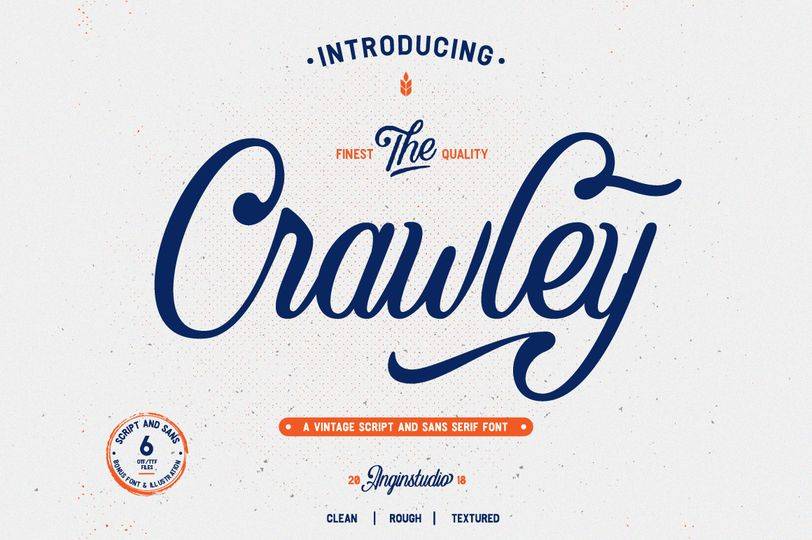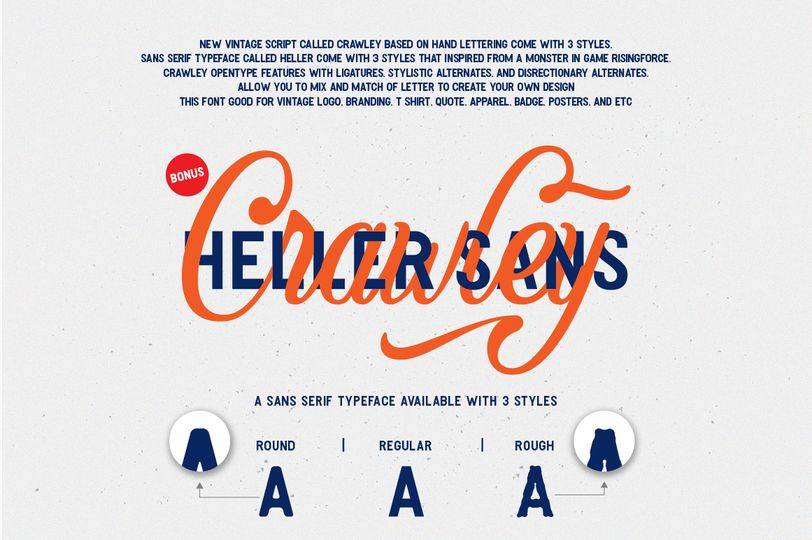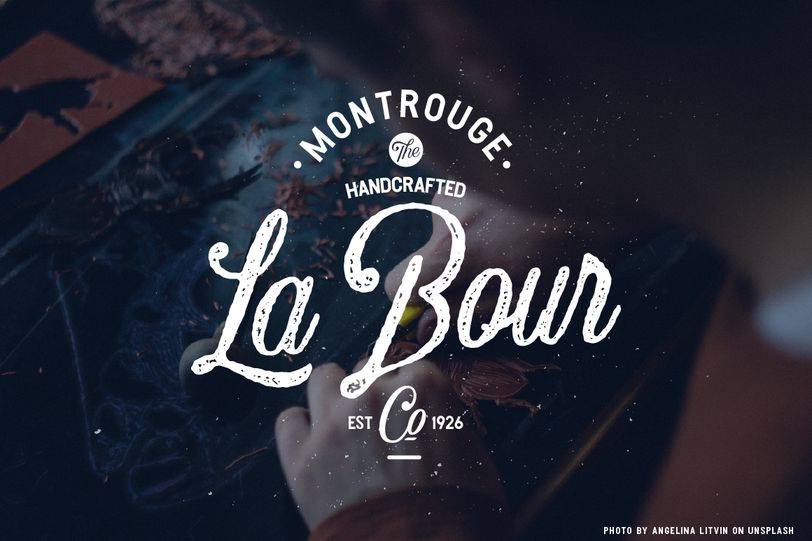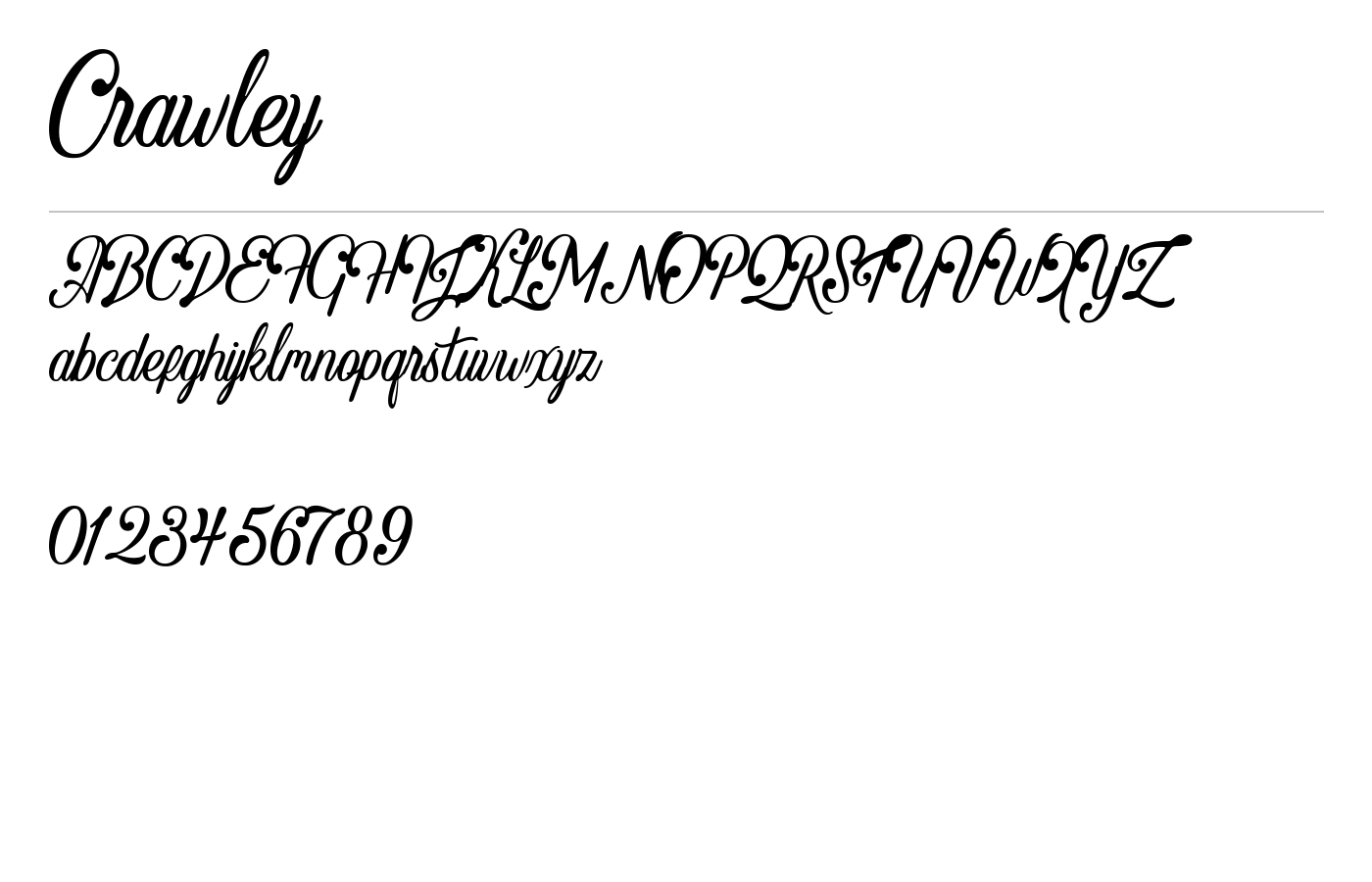
The Crawley Font is an elegant, flowing script typeface with a moderate contrast between thick and thin strokes, giving it a graceful and refined look. Its slender, slightly condensed letterforms and distinct uppercase swashes make it ideal for stylish branding, invitations, and headlines where a sophisticated, vintage-inspired feel is desired. This font works beautifully in contexts that call for a touch of classic charm combined with a modern, polished aesthetic.
The Crawley Font
About The Crawley Font